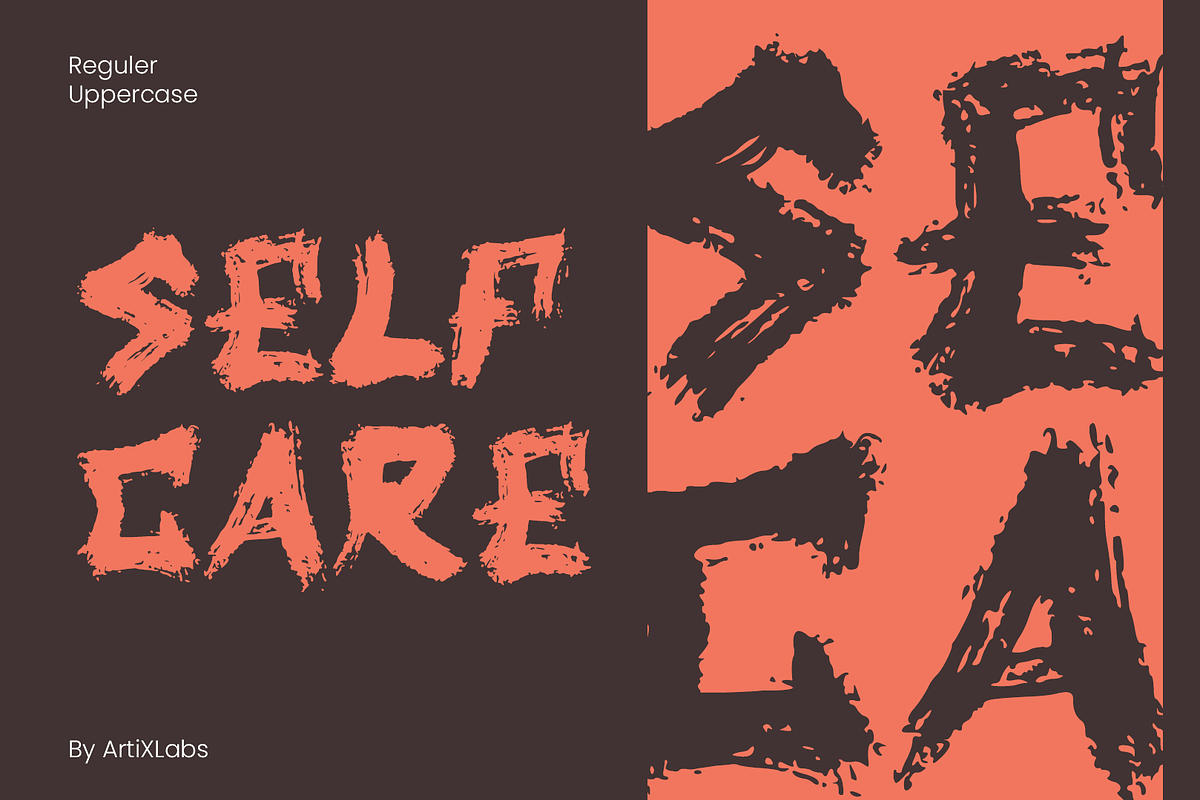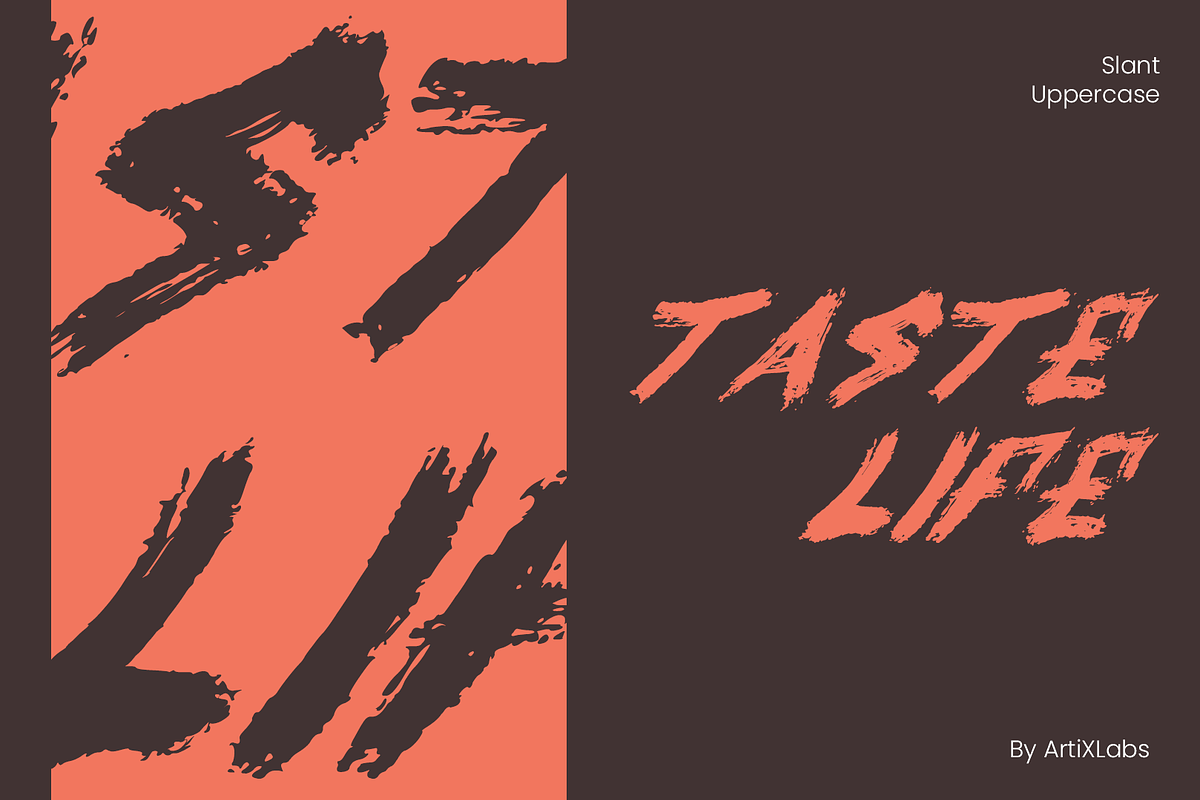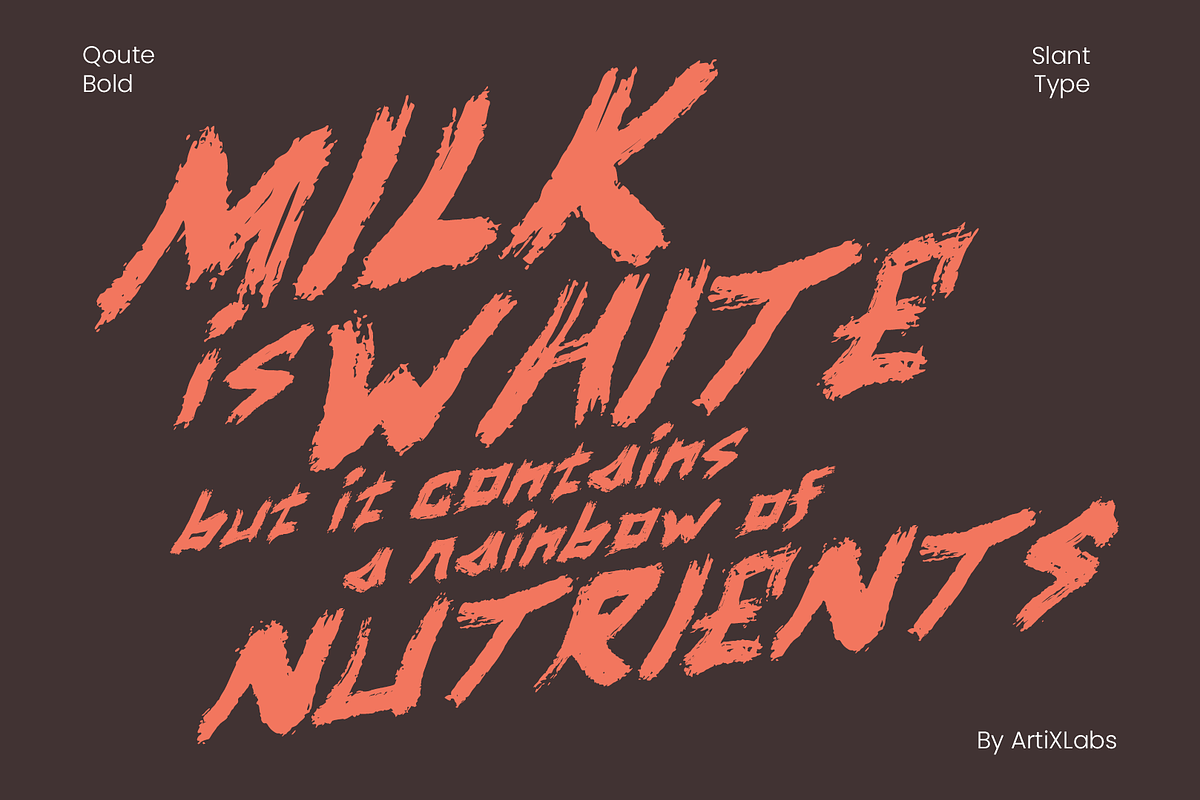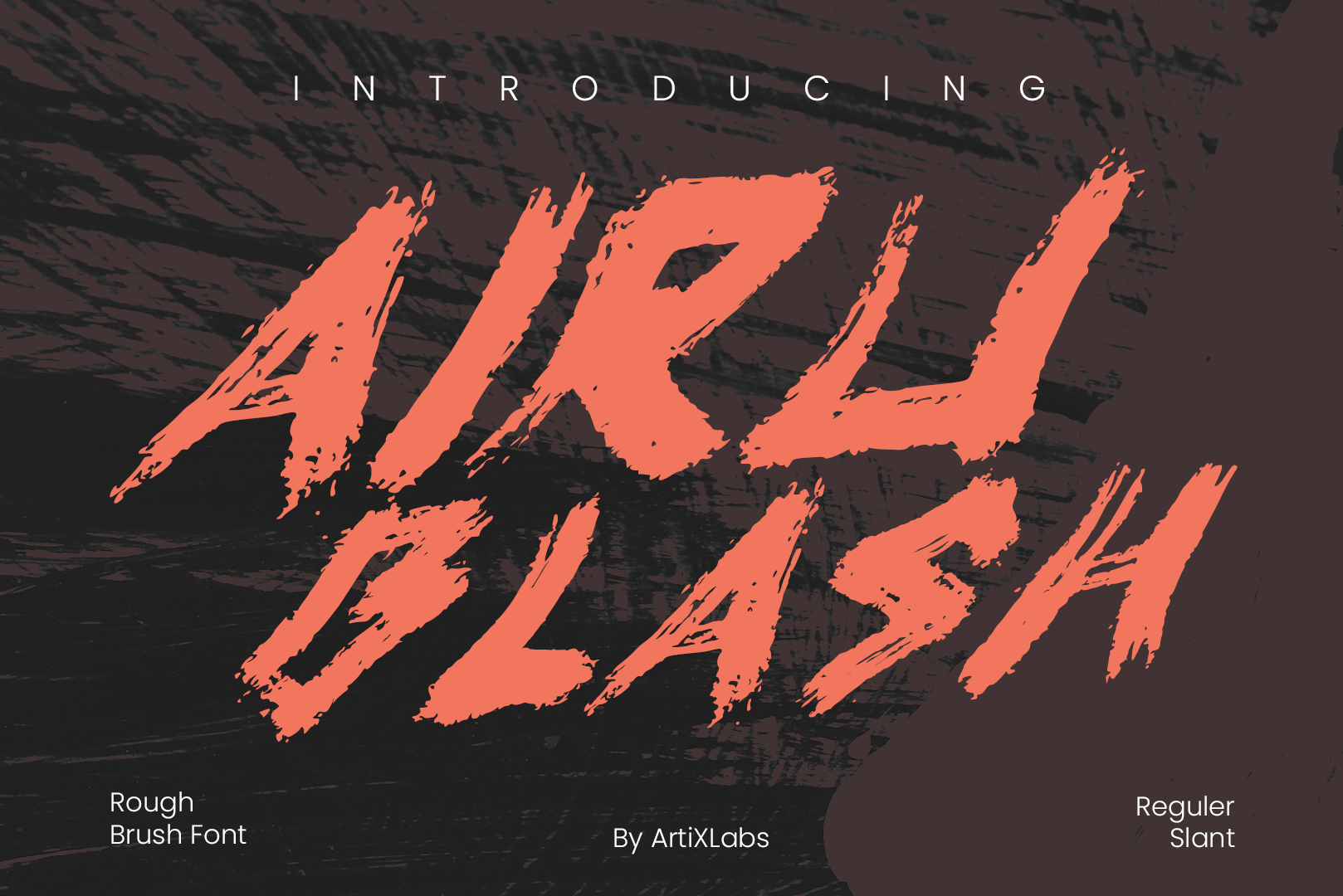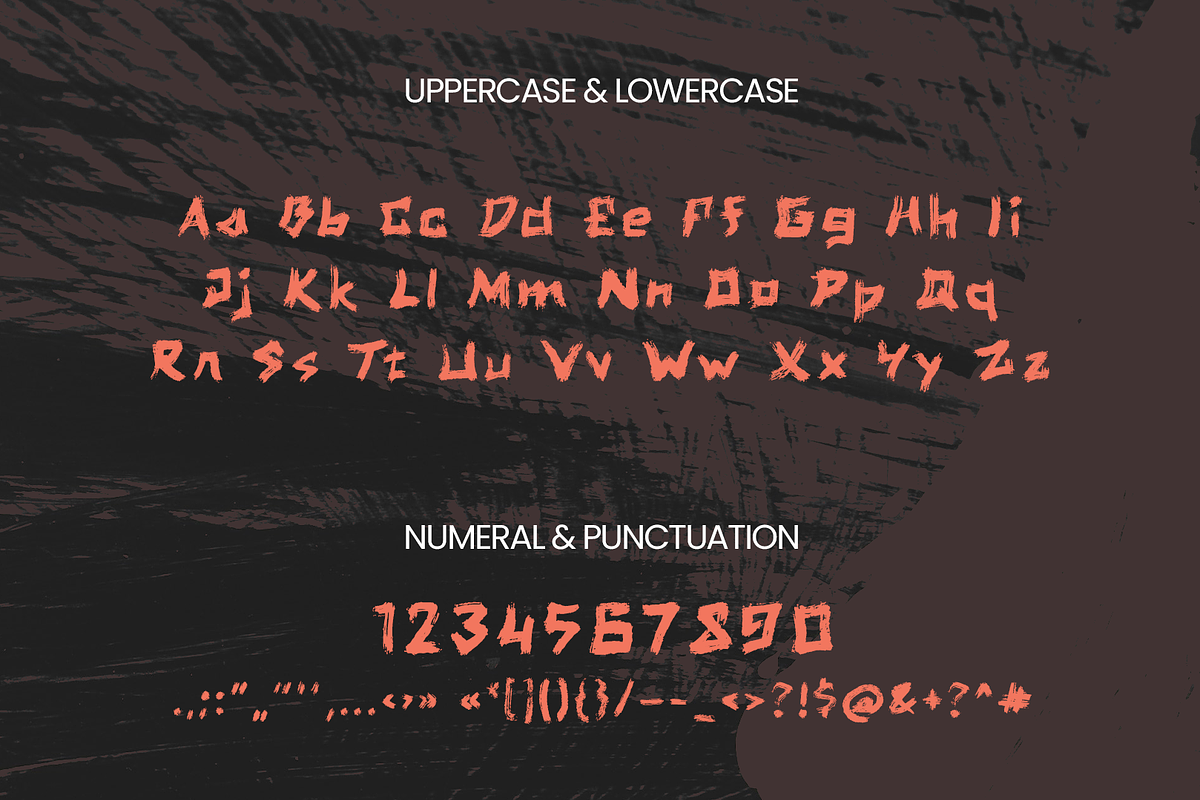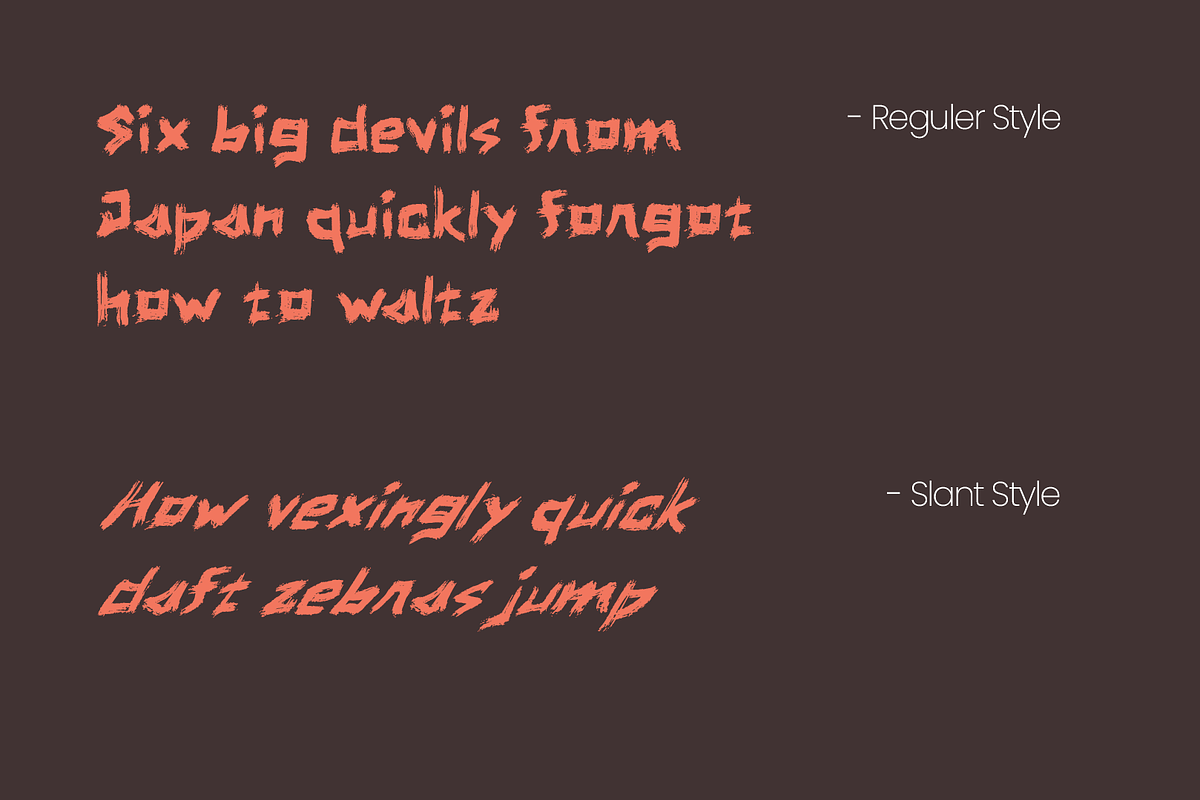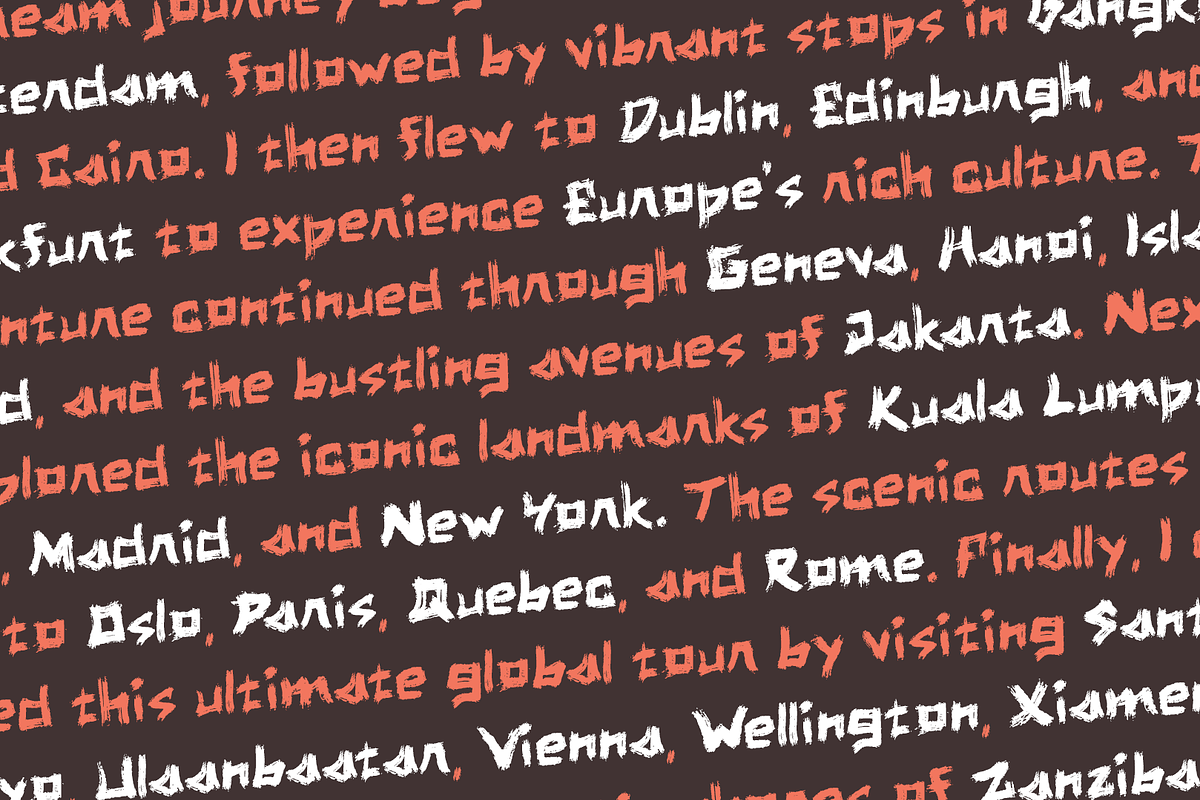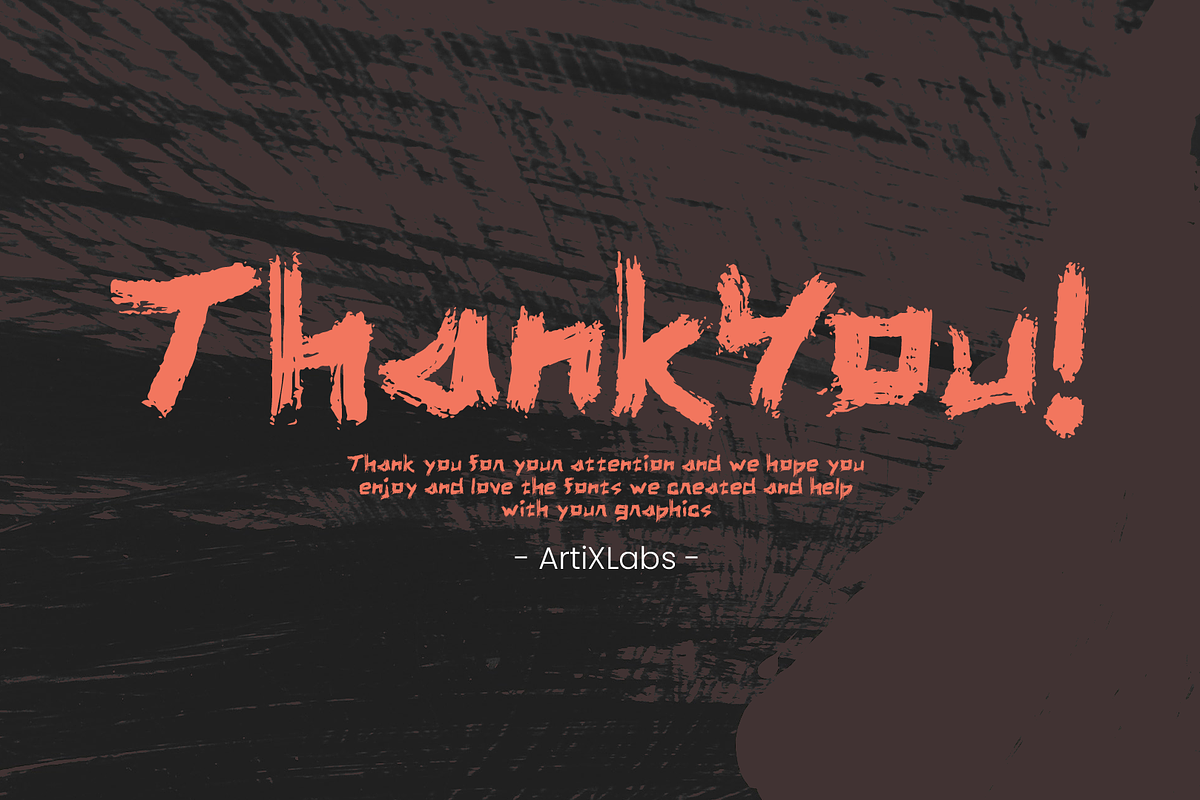
Airu Blash Brush Rough Font
Introducing Airu Blash - Brush Display Scrath Font
This Font Template contains Urban, Street, Liar, Expressive, Creative, Professional and Unique Concept.
- Uppercase & Lowercase letters